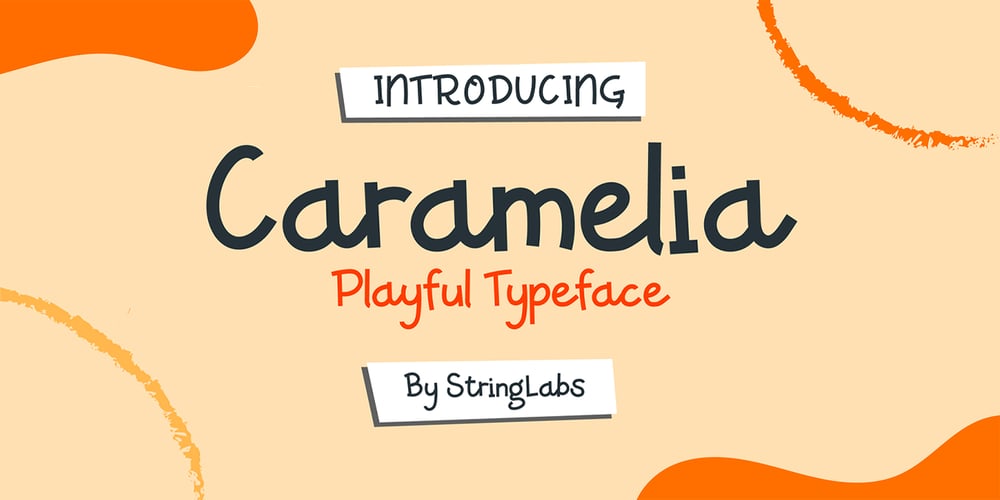
Caramelia Font Family was designed by Virgiawan Listanto and published by Stringlabs Creative Studio. Caramelia contains 1 styles and family package options. Caramelia is a playful kid’s font with a unique and modern look. Get inspired by its wonderfully light appeal. The Caramelia font is a great choice to increase the prominence in your project. Although the typography is traditional, the basic elements are great.